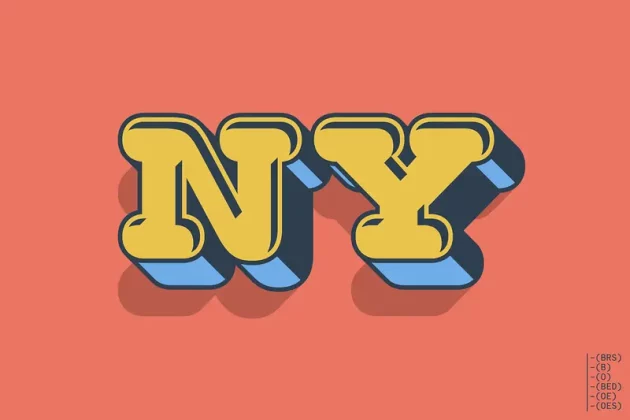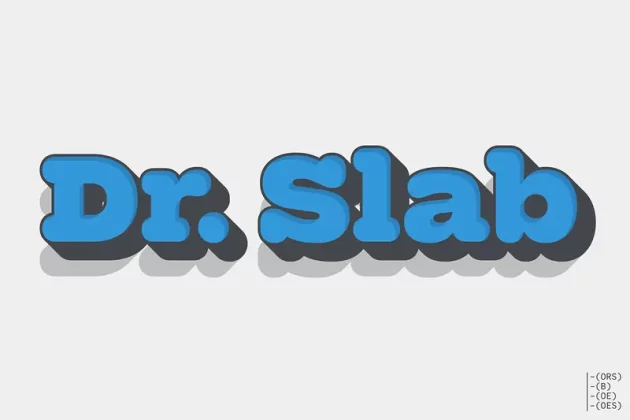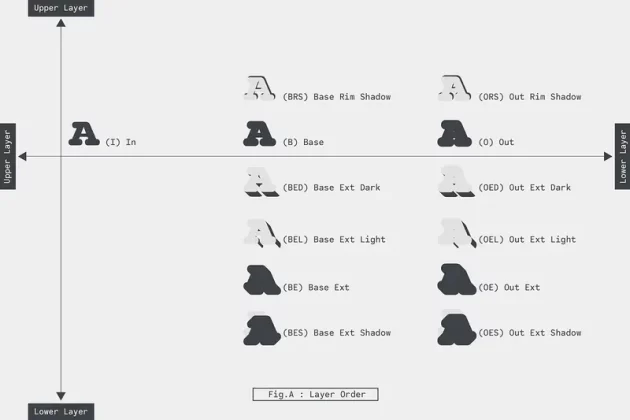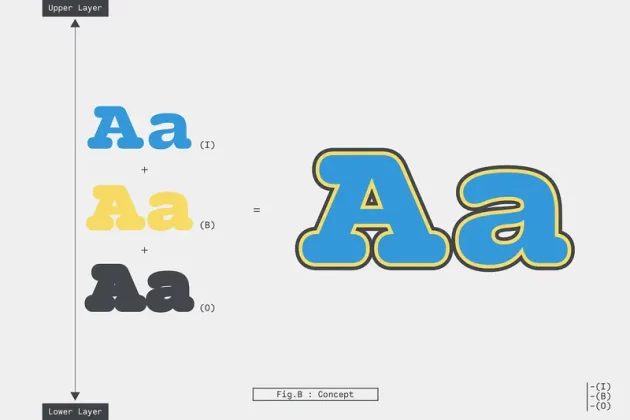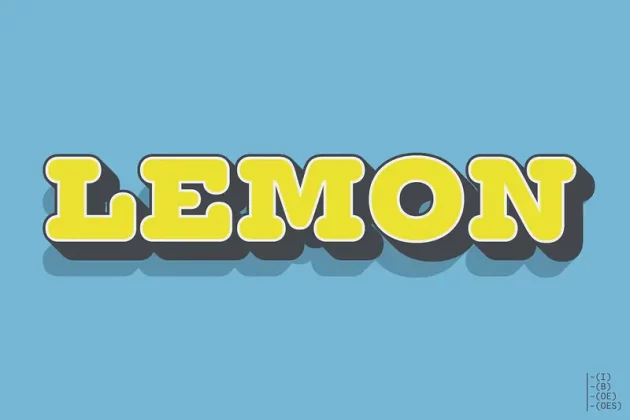
About Dr. Slab Font
Dr Slab delivers extraordinary impact and visual boldness, making it a perfect 3D serif font family for posters, logos, and all kinds of display typography.
While the concept isn’t new, it draws inspiration from a rich typographic tradition:
Layered or “stacking” type systems have been used since before the wood type era, with colored woodcuts, engraved prints, and early printing presses applying multiple plates to create vivid, multi-color compositions.
Dr Slab brings this technique into the digital age, using layerable font styles to build compelling 3D effects.
To use it effectively, work with Photoshop, Illustrator, or any graphic design app that supports layers—treating each font style as if it were a printing plate. You can assign different colors to each layer, just like traditional multi-pass printing.
The “Base” style is the foundation of the system. You can enhance it using additional styles like Rim, Shadow, and Ext to create rich dimensional effects.
The Dr Slab “Base” style can be used on its own, offering a bold and clean appearance without additional layering.
Its rounded slab serifs introduce a touch of softness, adding a cute and casual charm to your design—perfect for friendly branding, posters, or playful titles.